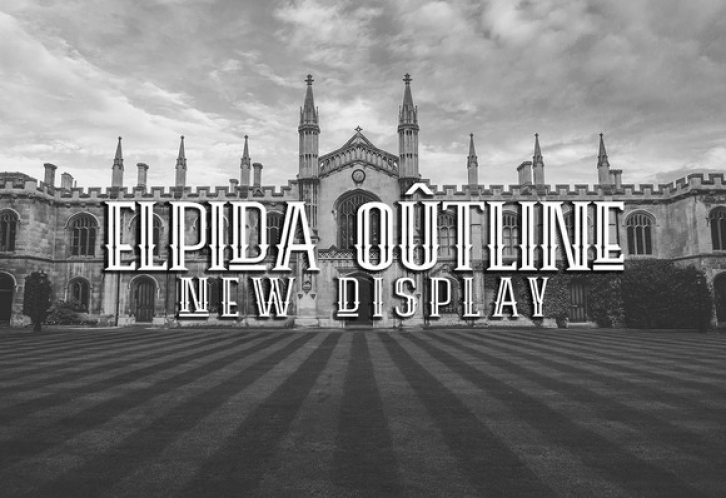
Elpida Outline is a jaw-droppingly stylish font; this display is suitable for neo-gothic projects, hipster projects, and more! This display font is flexible and beautiful.